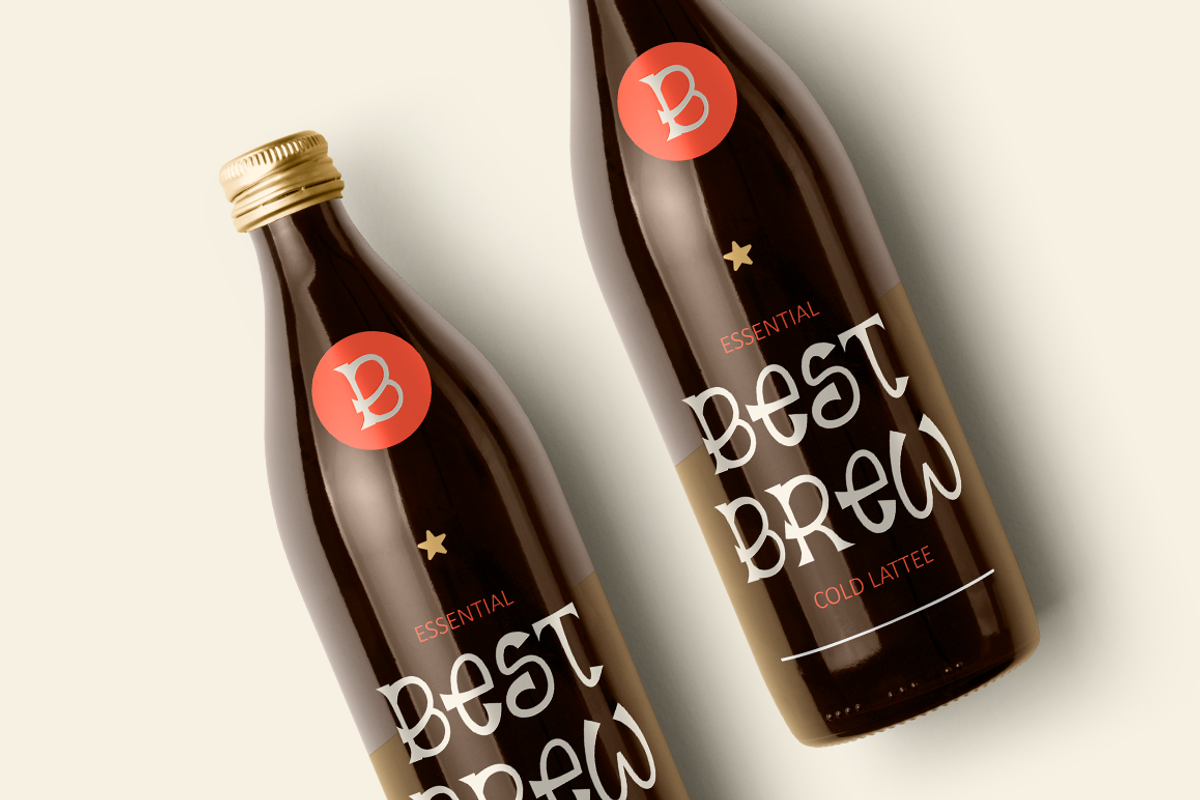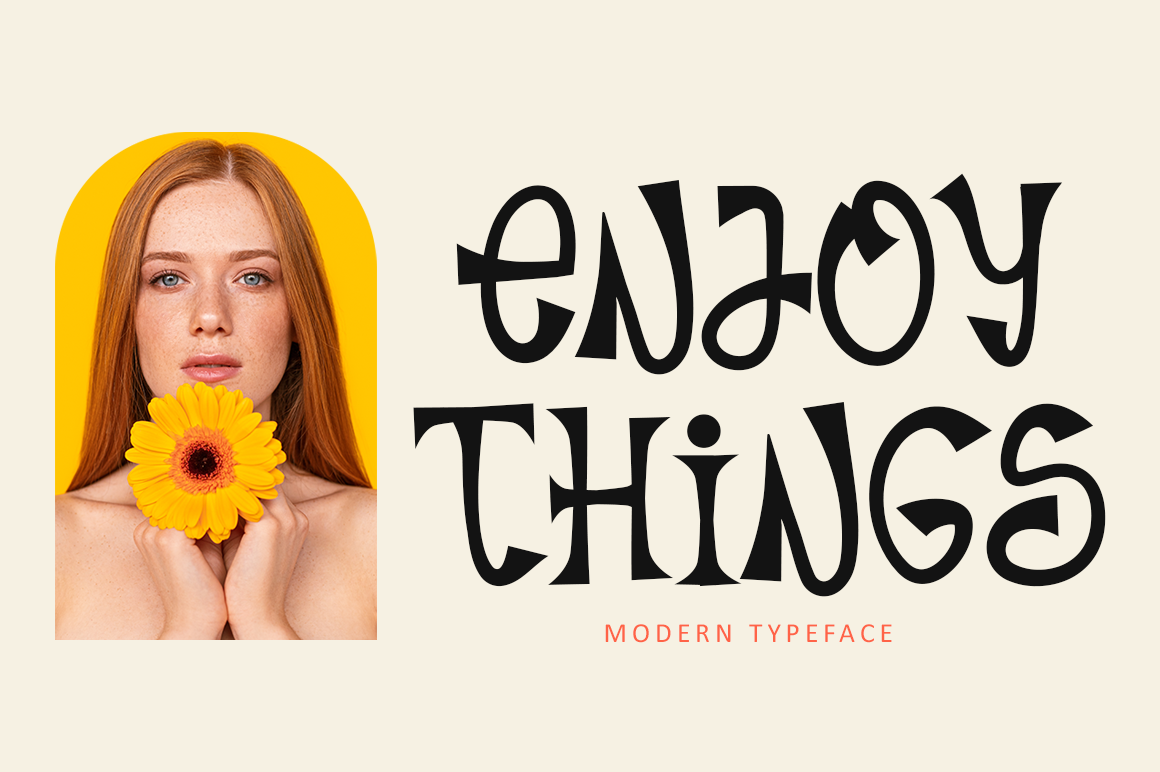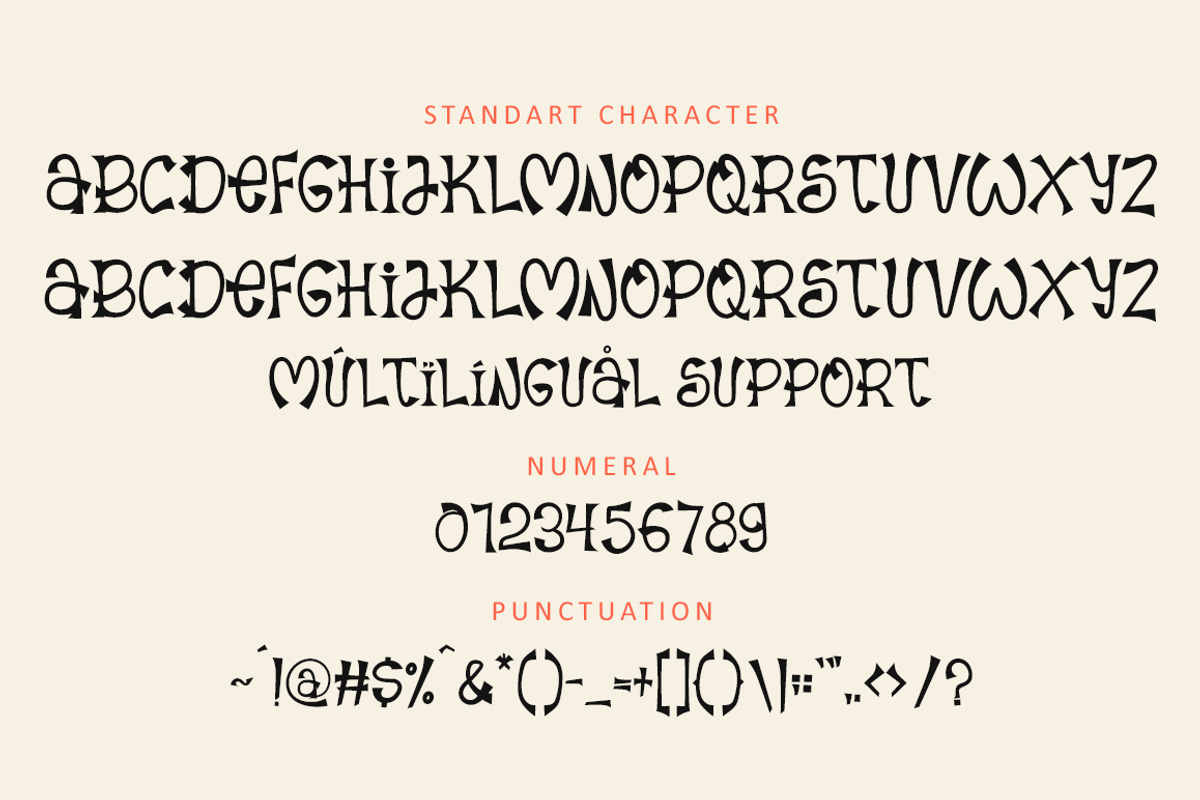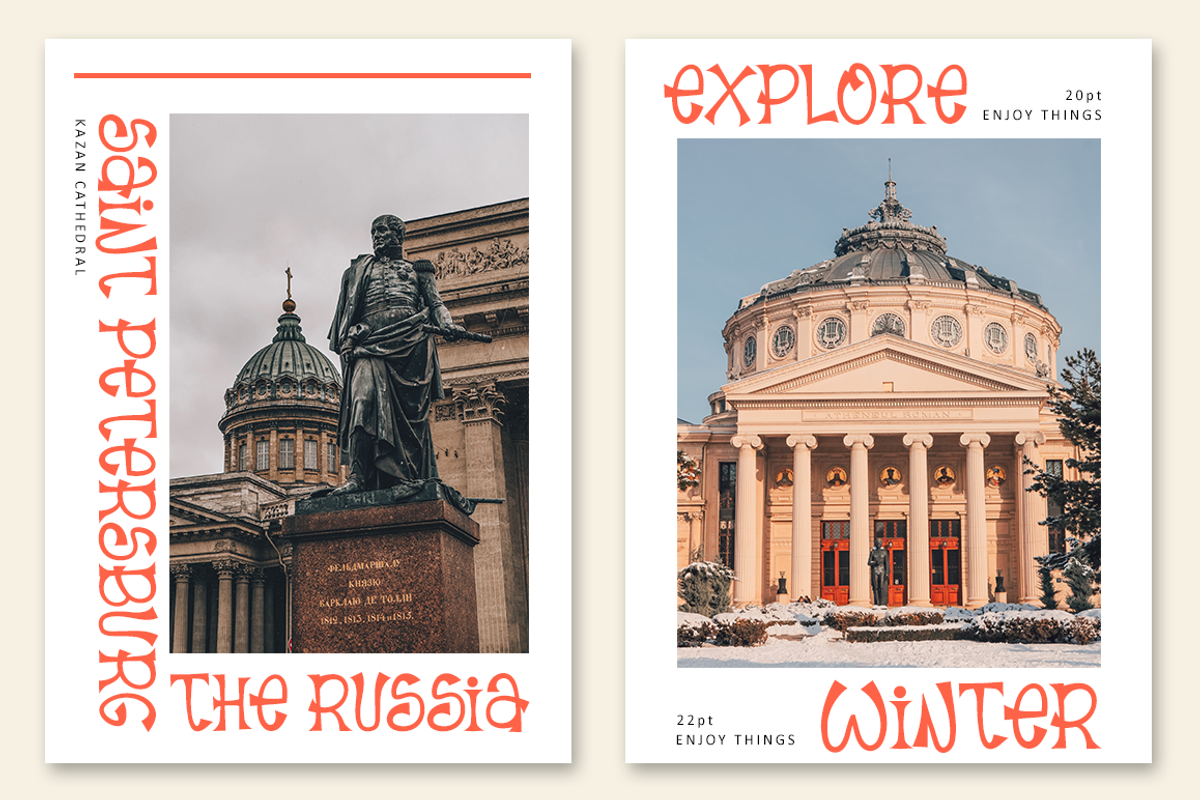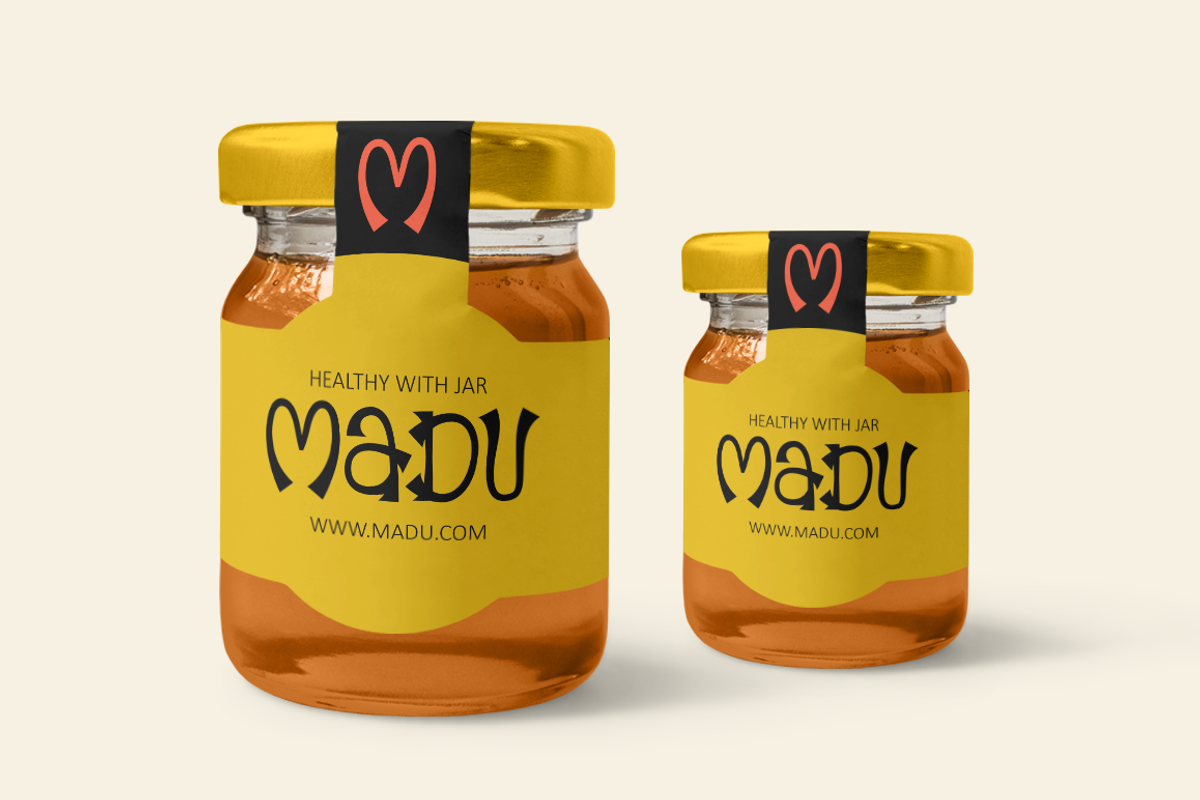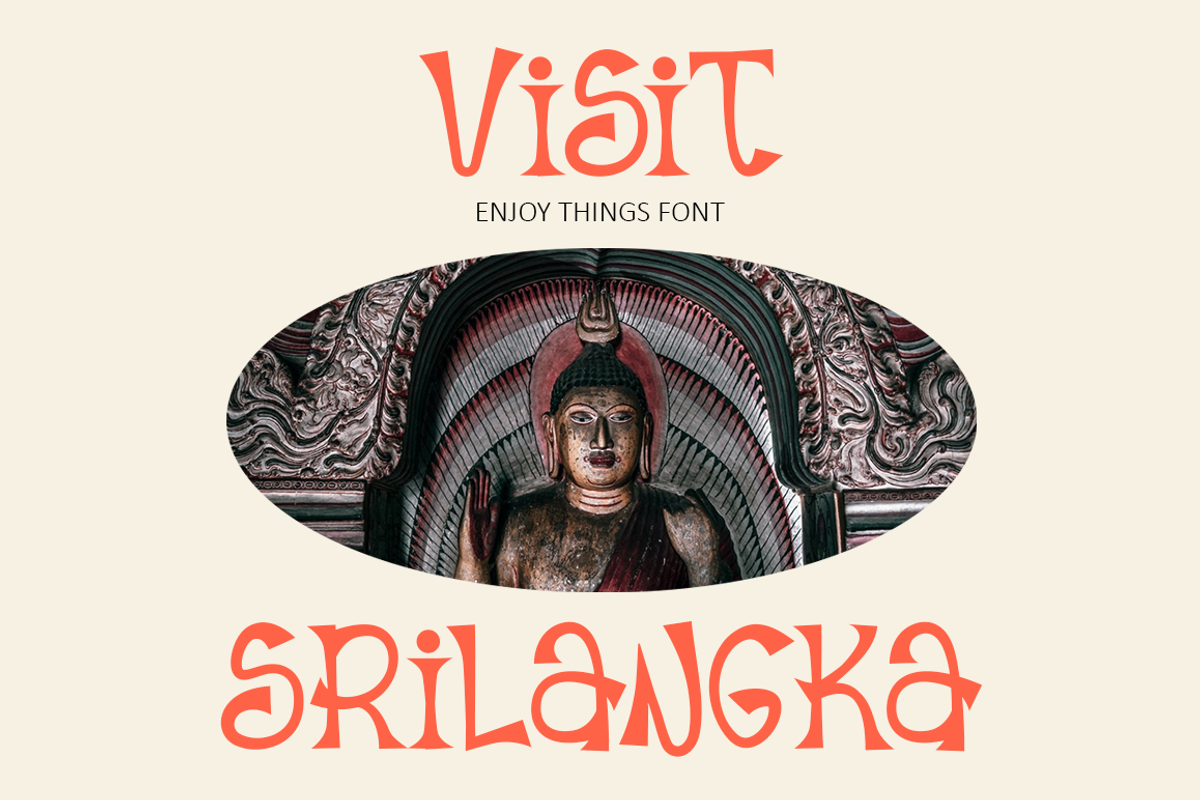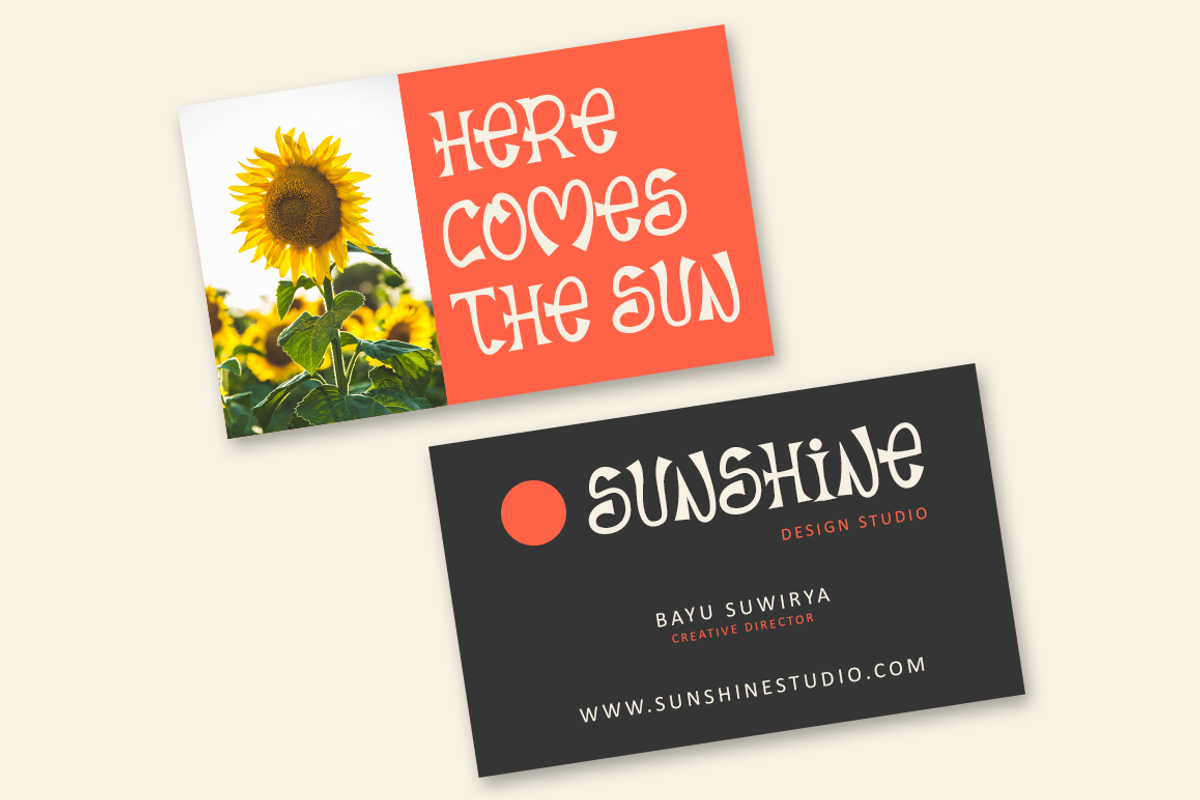
Enjoy Things - Modern Typeface
Enjoy Things is a modern typeface with special shape style combine. The modern style is look like trendy font and will be make your project design better and perfect. It's a very versatile font that works great in large and small sizes. Perfect for editorial projects, logo design, branding, product packaging, magazine headers, or simply as a stylish text overlay to any background image.